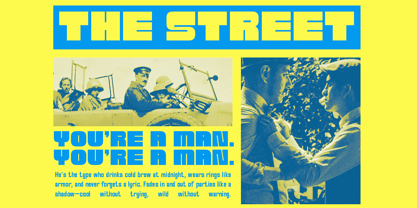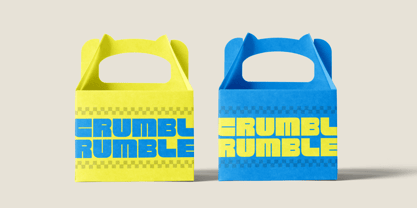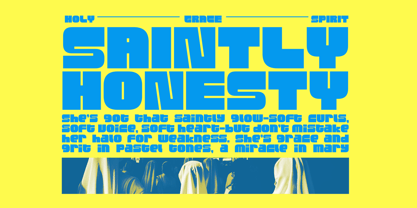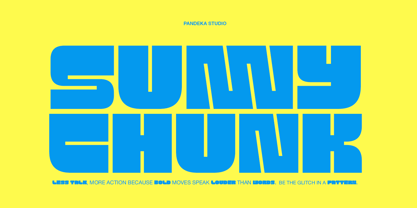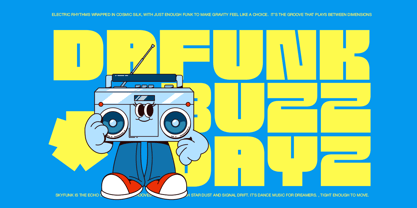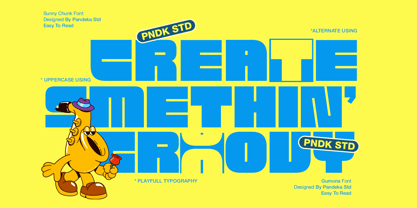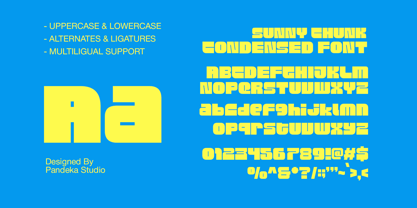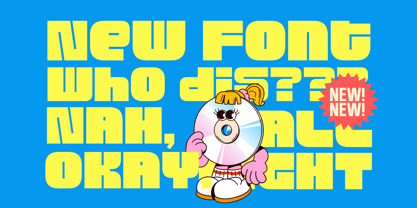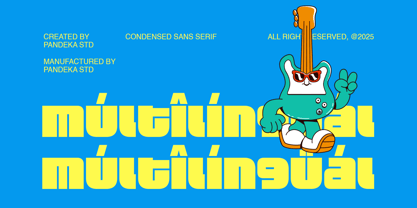
Sunny Chunk
by Pandeka Studio
The Sunny Chunk Font Family was designed by Sagara Nararya and published by Pandeka Studio. Sunny Chunk contains 1 styles. More about this family
Sunny Chunk is a bold and groovy display font with a modern retro touch. Its condensed, chunky letterforms bring a strong visual impact, making it perfect for posters, headlines, packaging, music covers, and street-style branding. With its playful yet powerful vibe, Sunny Chunk ensures your typography stands out and grabs attention instantly. The font comes in a single Regular style and is equipped with 15+ ligatures and alternates, giving you creative flexibility to craft unique letter combinations. It also supports uppercase, lowercase, numbers, punctuation, and multilingual characters, making it versatile for both local and global design projects. If you’re looking for a statement font with groovy energy and bold modern flair, Sunny Chunk is the perfect choice. What’s Included: Main Files formats 1 Style: Regular Full Character Set: Uppercase, lowercase, numbers, symbols, and punctuation 15+ Ligatures and alternates Easy to Use: Works on both PC & Mac Compatible with Adobe Illustrator, Photoshop, Microsoft Word, Canva, and more PUA Encoded: Fully accessible without additional software Language Support: Danish, English, Estonian, Filipino, Finnish, French, Friulian, Galician, German, Gusii, Indonesian, Irish, Italian, Luxembourgish, Norwegian Bokmål, Norwegian Nynorsk, Nyankole, Oromo, Portuguese, Romansh, Rombo, Spanish, Swedish, Swiss-German, Uzbek (Latin) Modern Bold Groovy Retro Typography Funky Lettering Playful Design Colorful Aesthetic Unique Style Eye-Catching Typeface Thank you and happy designing! Pandeka Studio